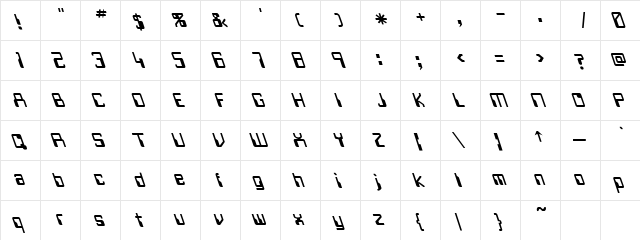
Future Lefty Italic Regular
Future Lefty Italic channels digital-age aesthetics through its sharp, structured letterforms — ideal for brands that want to signal innovation. The slanted form adds forward momentum and visual energy.
Pro Tip: Use Future Lefty Italic in combination with a neutral sans for body text. Let it define the brand voice in headlines while keeping reading comfortable elsewhere.